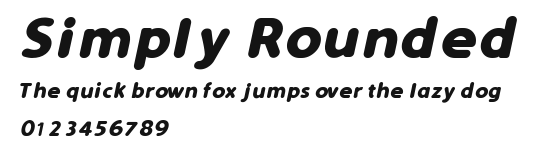
Simply Rounded Preview
• Font Name: Simply Rounded
• Font Style: Gras Italique
• Font ID: Simply Rounded Bold Italic:Version 1.00
• Full Font Name: Simply Rounded Bold Italic
• Version: Version 1.00 December 30, 2014, initial release
• PostScript Name: SimplyRounded-BoldItalic
• Designer: © Galdino Otten
About Simply Rounded.ttf
Simply Rounded.ttf is a modern, elegant sans-serif font designed for ultimate readability and visual harmony. Perfect for branding, headlines, web design, and print materials.